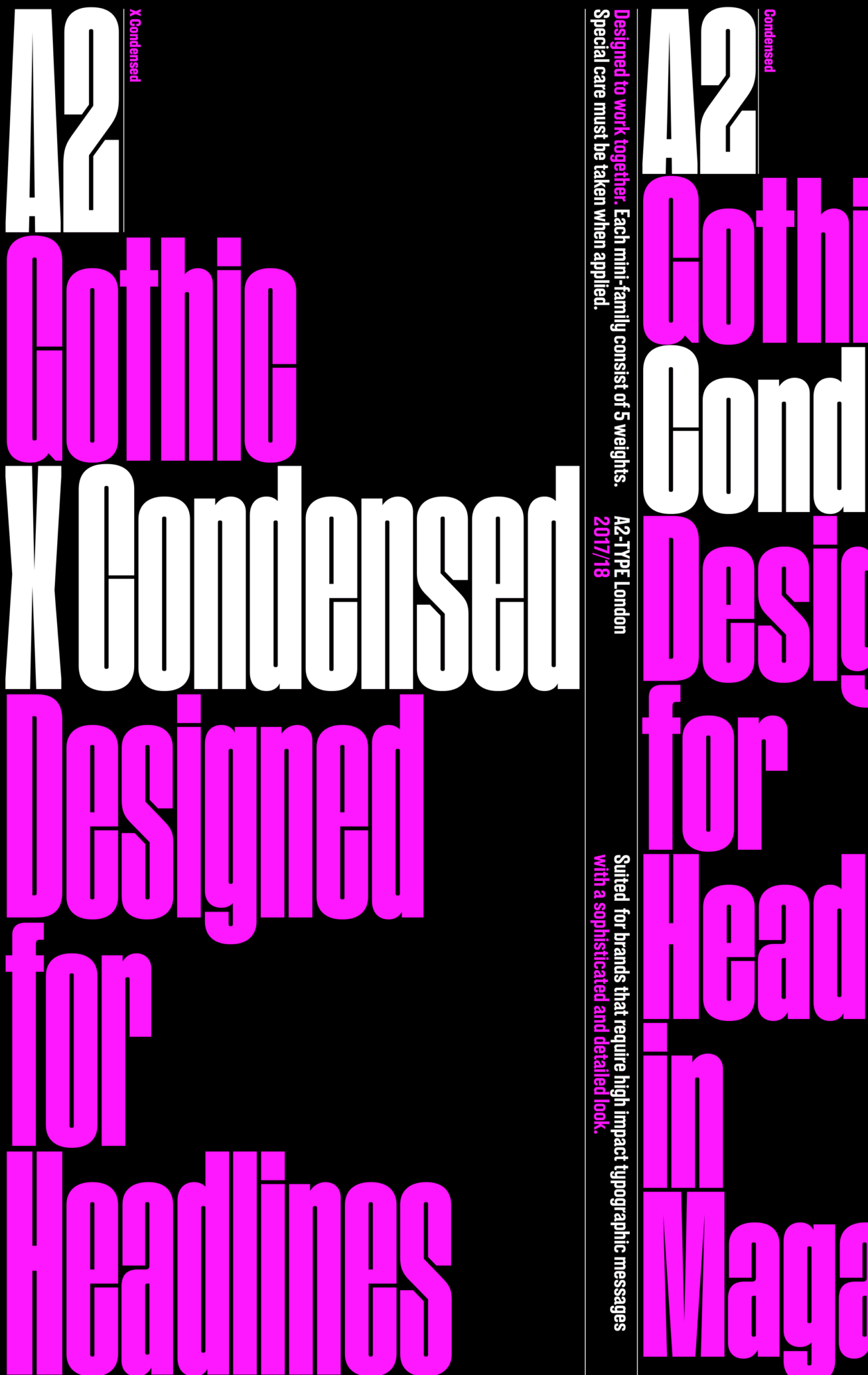
A2 Gothic X Condensed is a bold, extremely condensed, yet elegant iteration of this Grotesque Family. Gothic X Condensed is distinguished by its narrow proportions and exaggerated counters – making this font an excellent choice for headlines and titling.
| Font name: | A2 Gothic X Condensed |
| Font category: | Sans |
| Styles: | Regular Medium Semibold Bold Heavy |
| Manufacturer: | A2-TYPE |
| Designer: | Henrik Kubel |